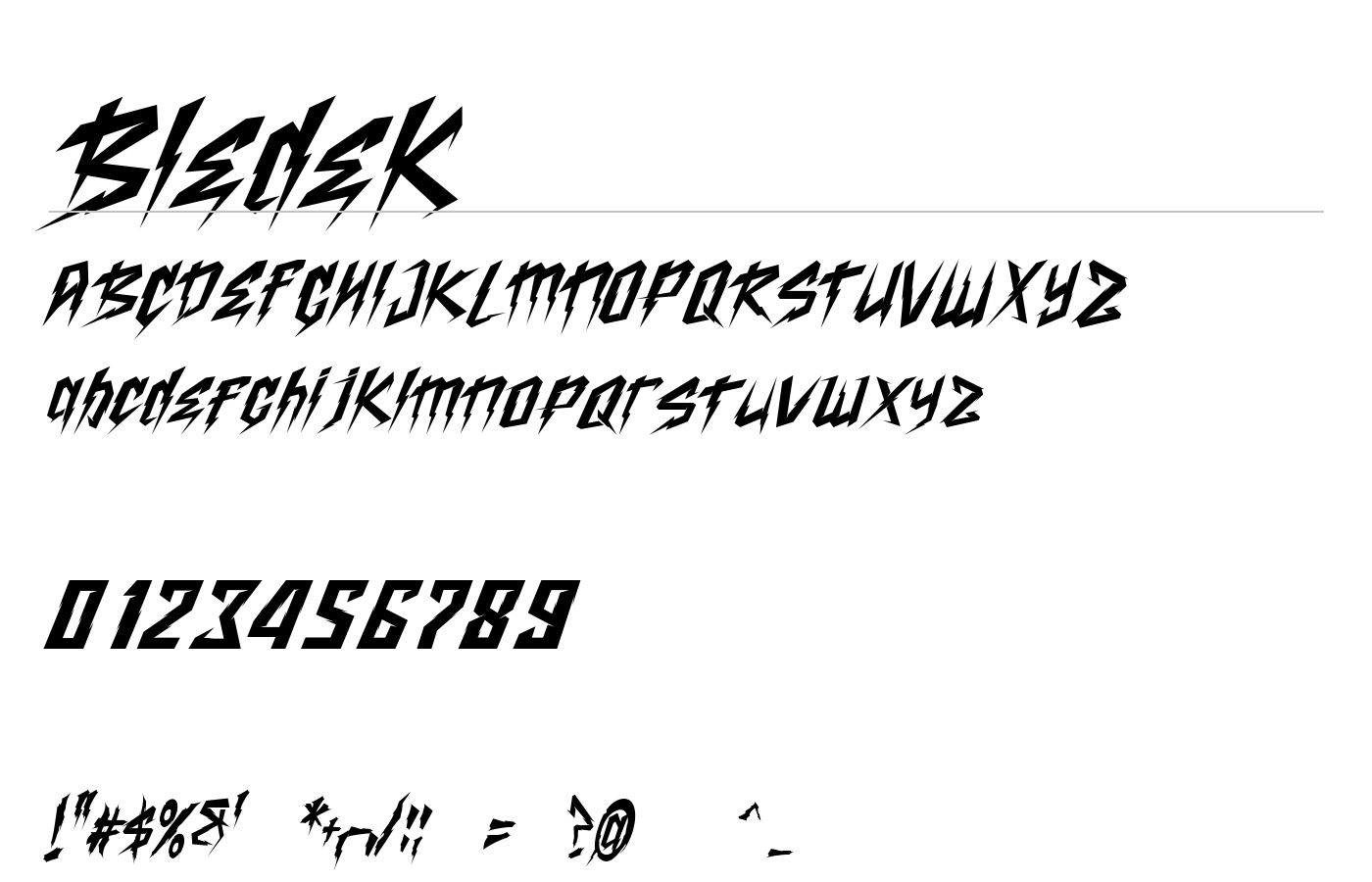
Bledek is an edgy, sans serif display font with a bold, condensed style and sharp, lightning-inspired strokes that give it a dynamic, energetic feel. Its jagged letterforms and angular details make it perfect for striking headlines, posters, or branding that aims to convey power and intensity. This font shines in contexts that want to capture attention with a modern, rebellious, and electrifying vibe.
Bledek Font
About Bledek Font